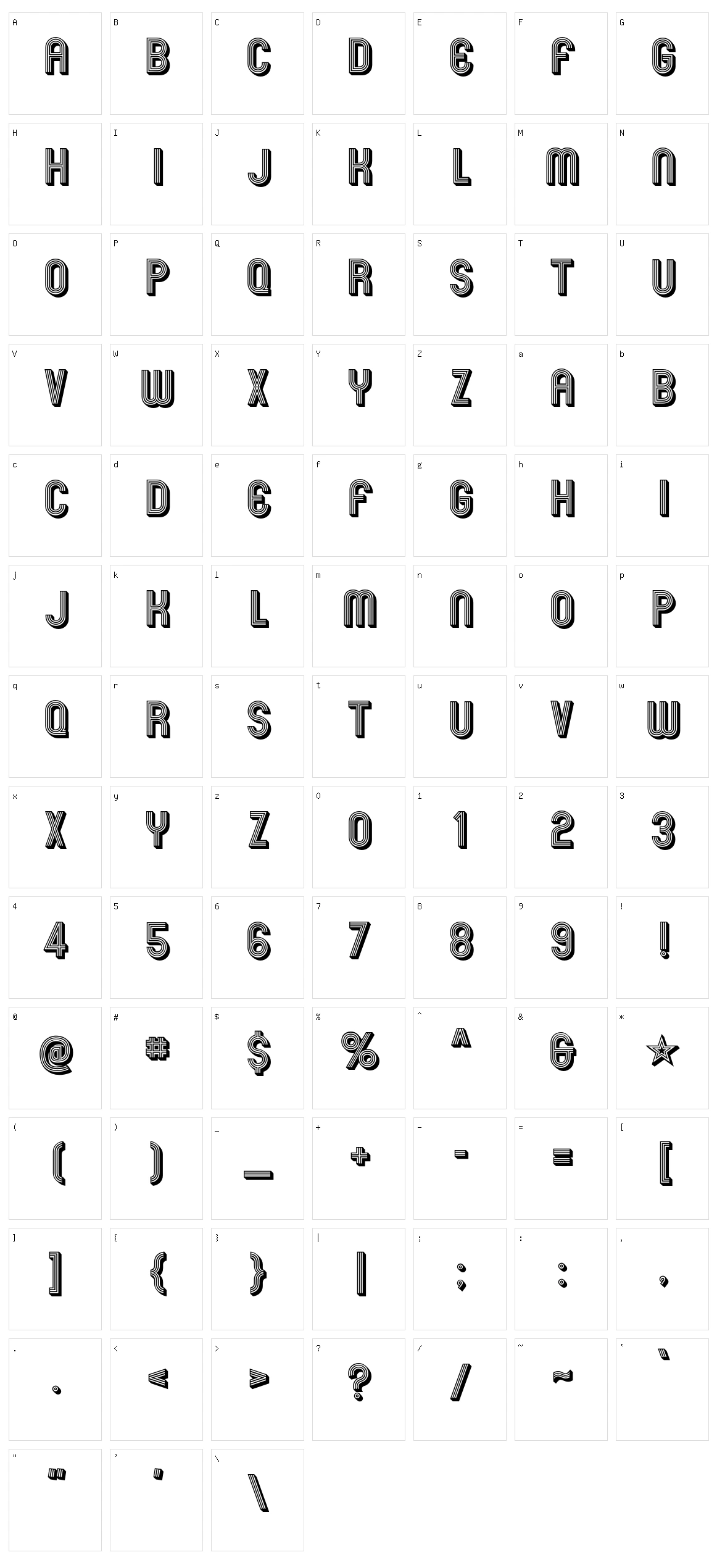
The free font Mexcellent is carefully designed by Typodermic Fonts, showcasing a thoughtful balance of creativity and usability and falls under the Groovy font style. When you download the ZIP file, it contains only 240.64 KB of font files, making it lightweight and quick to download. Please review the license details below to understand permitted usage and distribution rights. If license information is not available, we recommend using this font for personal projects only or contacting the author directly for commercial usage permissions.